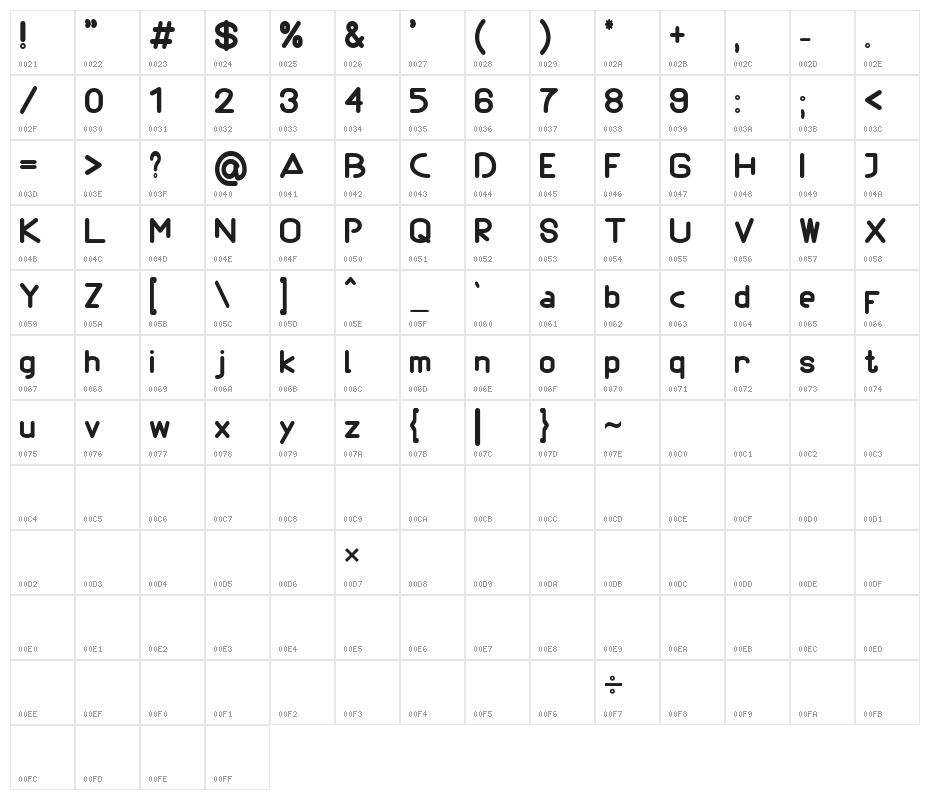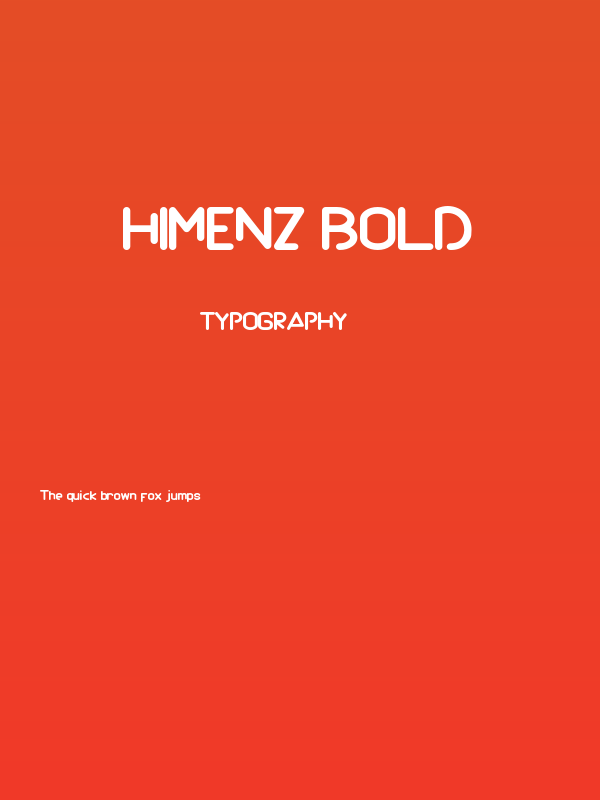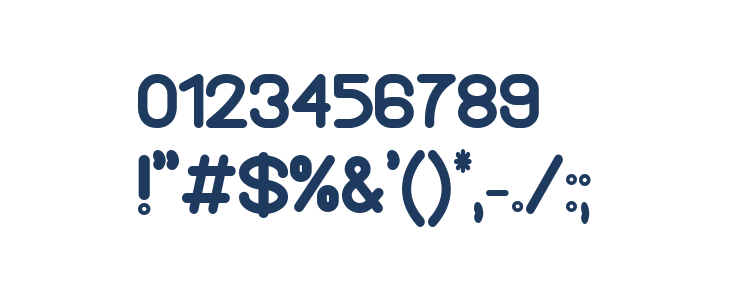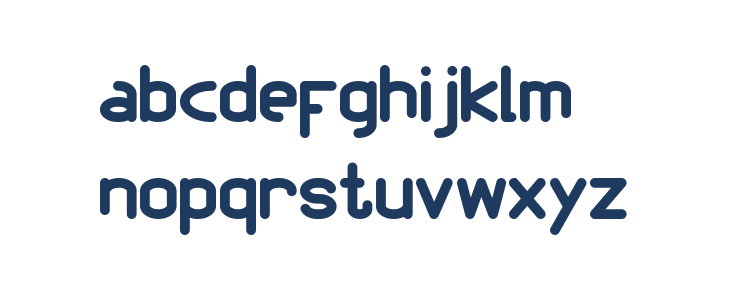
HIMENZ Bold Font
HIMENZ Bold Description
This font features a bold and rounded style with a modern and playful appearance. The characters are uniformly thick, giving a consistent and cohesive look. The rounded edges and smooth curves create a friendly and approachable feel, making it suitable for various creative applications. The uppercase and lowercase letters maintain a uniform width, contributing to a balanced and harmonious design. The numerals and special characters are designed to match the overall aesthetic, ensuring versatility across different uses.